10 Best Display Fonts Designs for Your Creative Projects
Make a powerful visual statement with our curated collection of professional Display Fonts. These high-impact typefaces are specifically selected to help you save time while creating bold, unforgettable designs that instantly grab attention. Whether you are working on branding, posters, or digital assets, using the right Display Fonts is the key to transforming a simple layout into a professional masterpiece.
1. Twinkle Dreams Display Font
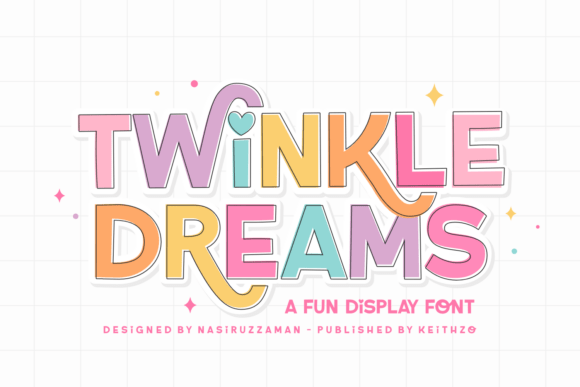
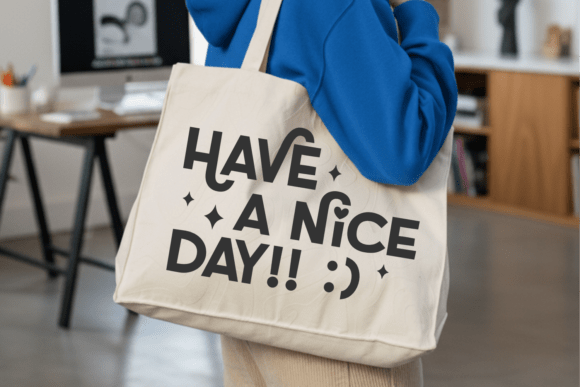
I’m absolutely charmed by the magical and sparkling personality that Twinkle Dreams brings to the screen. It’s a whimsical typeface that works wonders for children’s book covers, festive event posters, or any project needing a touch of fantasy. If you are looking for Display Fonts that radiate joy and creativity, this stellar font is a fantastic choice to make your designs truly shine and stand out.
2. The Crafty Marie Display Font
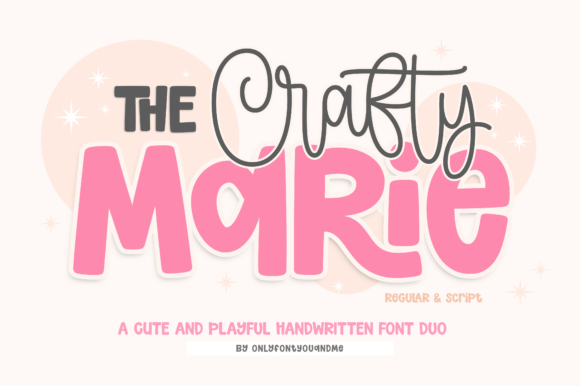
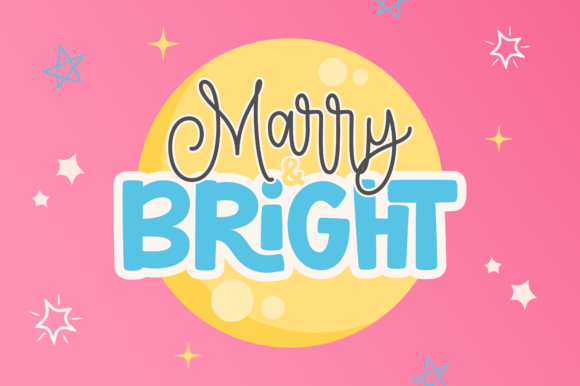
I’m truly impressed by the bold, hand-cut aesthetic that The Crafty Marie brings to any creative layout. It has a wonderful DIY feel that makes it an ideal match for crafting projects, scrapbooking, or eye-catching product packaging. For those seeking Display Fonts that offer a rustic yet modern vibe, this expressive typeface is a perfect tool to give your designs a unique and handcrafted professional touch.
3. Farmhouse Valentines Display Font
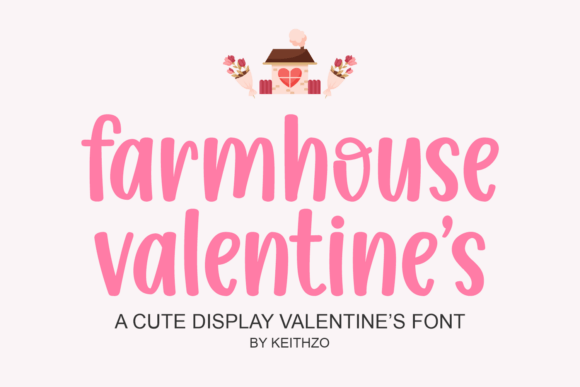
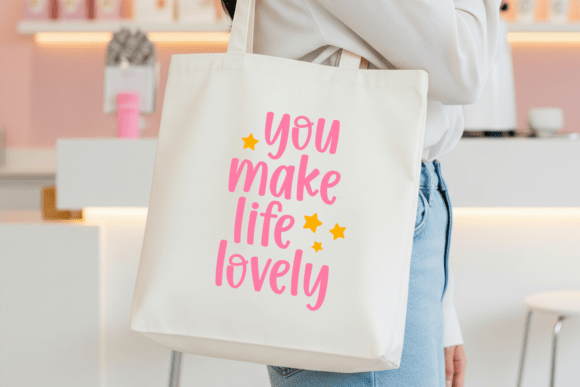
I’m absolutely delighted by the cozy and warm aesthetic of Farmhouse Valentines. Its expressive forms and festive character are a perfect match for seasonal decor, greeting cards, or rustic-style branding projects. If you need Display Fonts that instantly create an atmosphere of love and home comfort, this lovely typeface will become an essential element in your design toolkit for creating heartfelt visuals
4. My Wednesday Night Display Font
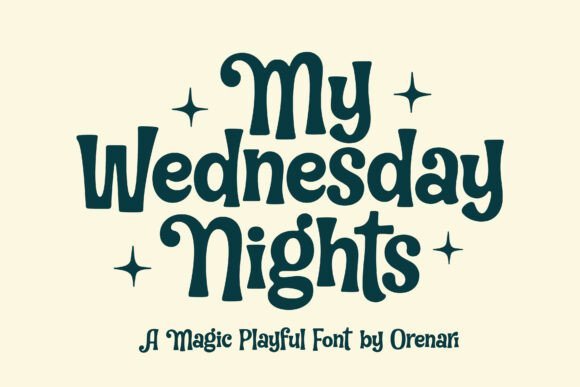
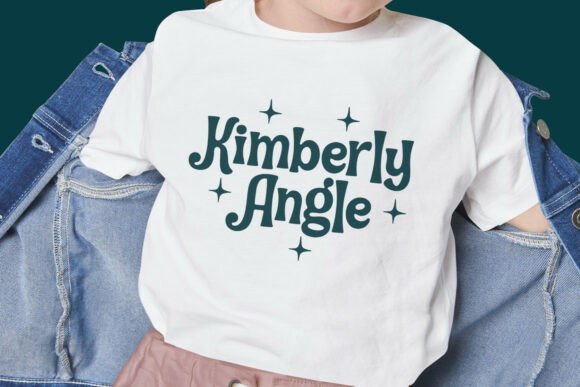
I’m instantly drawn to the mysterious and slightly edgy aesthetic that My Wednesday Night offers. Its bold, sharp-edged style is an incredible fit for horror-themed posters, trendy apparel, or standout social media headlines. If you are searching for Display Fonts that demand attention and carry a strong, moody presence, this striking typeface is a brilliant way to add a bit of dark elegance to your work.
5. Stay Chunky Display Font
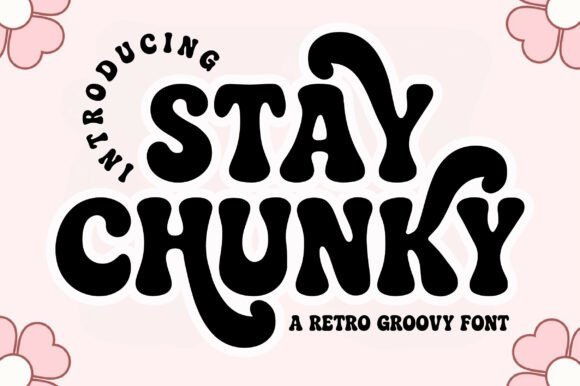
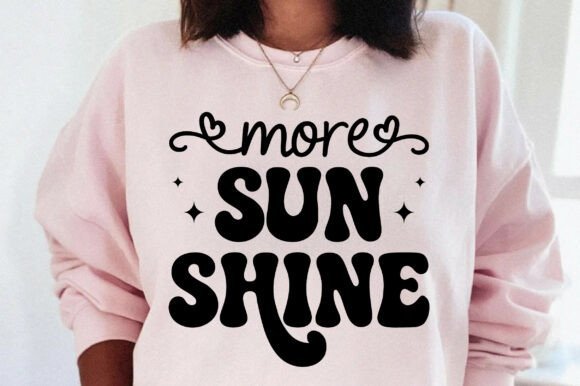
I’m truly impressed by the bold and energetic look of Stay Chunky. Its massive, «puffy» forms are perfectly suited for vibrant logos, children’s product designs, or stylish merchandise. If you are looking for Display Fonts that look high-impact and modern, this typeface is an excellent solution to provide your creative project with significant visual weight and a unique, professional character that stands out.
6. Varsity Spirit Display Font
I love the powerful athletic aesthetic that Varsity Spirit brings to any layout. This font, with its classic collegiate style features, is ideal for sports branding, team uniform designs, or dynamic headlines. If you need Display Fonts that exude confidence and team spirit, this typeface is a magnificent choice for creating bold and high-energy visual concepts that truly resonate with your audience.
7. Hunters K-Pop Display Font
I’m absolutely thrilled by the sharp, futuristic energy that Hunters K-Pop radiates. It’s a bold and dynamic typeface that perfectly captures the modern music aesthetic, making it ideal for concert posters, tech branding, or trendy social media assets. If you are on the hunt for Display Fonts that feel high-energy and cutting-edge, this striking font is the ultimate tool to give your creative projects a powerful visual impact.
8. Have a Nice Day Honey Display Font
I’m sincerely charmed by the friendly and cheerful character of Have a Nice Day Honey. Its soft, rounded forms and positive vibe make it ideal for packaging design, children’s parties, or inspirational quotes. If you are looking for Display Fonts that give a sense of happiness and ease, this font will be a wonderful addition to your collection, adding a touch of warmth and sincerity to your projects.
9. Remember Things Display Font
I’m truly fascinated by the nostalgic and slightly vintage charm that Remember Things brings to a layout. Its bold yet approachable letterforms make it an excellent choice for retro-style branding, editorial headlines, or classic poster designs. When you need Display Fonts that evoke a sense of memory and timeless style, this unique typeface is a perfect asset to ensure your creative work leaves a lasting professional impression.
10. Thick Lover Duo Display Font
I’m absolutely obsessed with the playful and heavy-set personality of Thick Lover Duo. This font set offers a fantastic combination of bold presence and friendly curves, making it ideal for eye-catching logos, stickers, or modern streetwear branding. If you are looking for Display Fonts that provide maximum visual weight without losing their artistic charm, this versatile duo is a brilliant choice to make your designs pop.